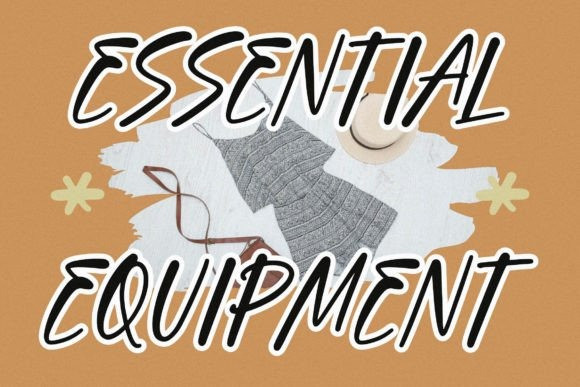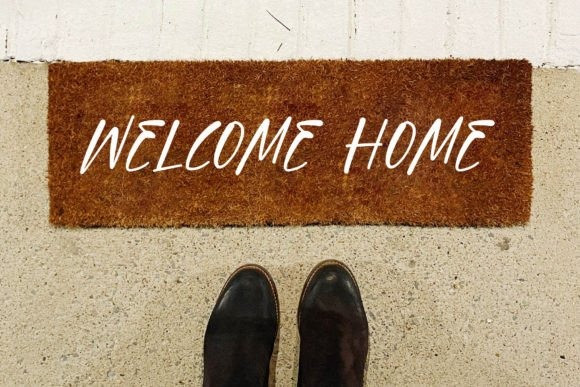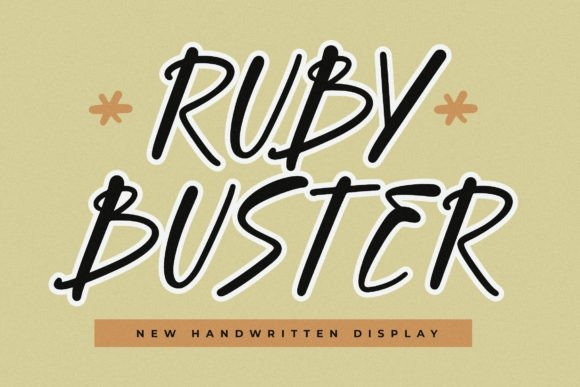
Ruby Buster Font
Ruby Buster Font is a fresh handwritten font from Glorytype Studio, suitable for any project ranging from logos, branding projects, homeware designs, product packaging, mugs, quotes, posters, shopping bags, t-shirts, book covers, name cards, invitation cards, greeting cards, label, photography, watermark, special events, and all your other lovely projects that need a beautiful script taste.